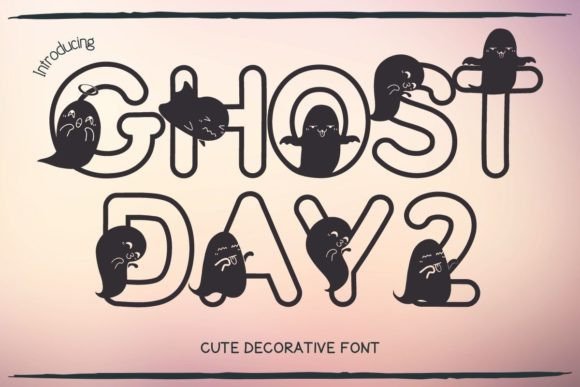
Unleash the enchanting charm of Ghost Day Two, a decorative font that will cast a spell on your creative projects! Immerse yourself in a world where cuteness and quirkiness dance together, creating designs that are sure to mesmerize.
Picture this: a font adorned with adorable ghost silhouettes, playfully frolicking amidst transparent letters. Ghost Day Two's whimsical aura is a breath of fresh air, bringing a touch of magic to your digital creations.
With Ghost Day Two, you hold the key to unlocking endless possibilities. Craft eye-catching banners that transport viewers to a realm of enchantment. Design captivating content that leaves an indelible mark on your audience. Create mugs, cards, and shirts that radiate personality, making each one a delightful conversation starter.
Envision your social media posts adorned with Ghost Day Two's captivating allure, drawing countless eyes to your content. This font is not merely a collection of characters; it's an invitation to let your creativity soar, to embrace the extraordinary, and to weave tales that resonate with your audience.